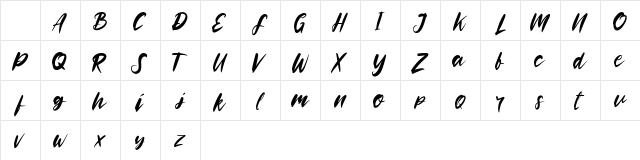
Complete Rooselyn demo Regular glyph index. Displaying only characters natively supported by Rooselyn demo Regular font.
Rooselyn demo is a composed and adaptable typeface that performs quietly and consistently across a wide range of design contexts.
Who designed the Rooselyn demo Regular font?